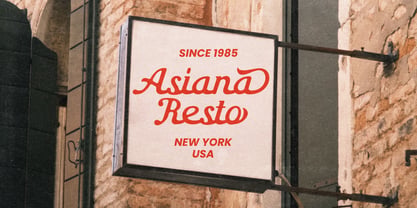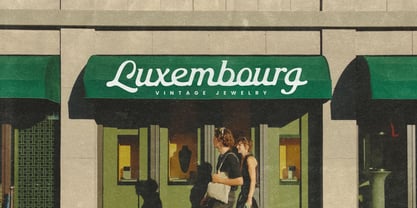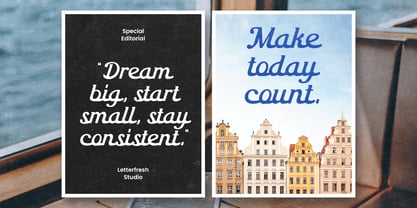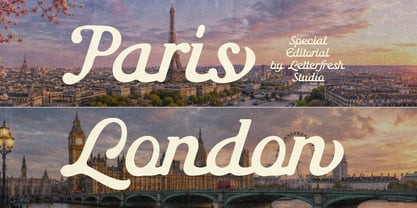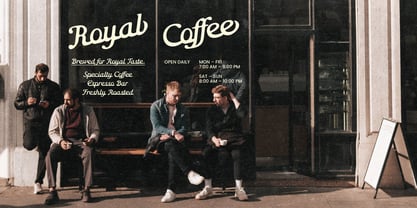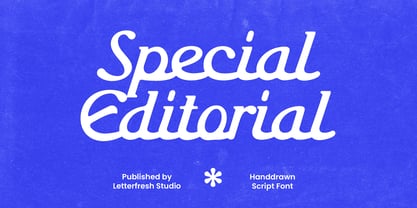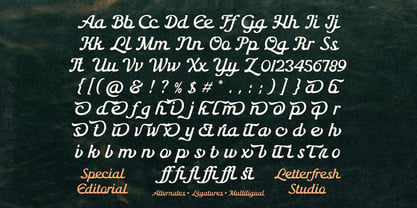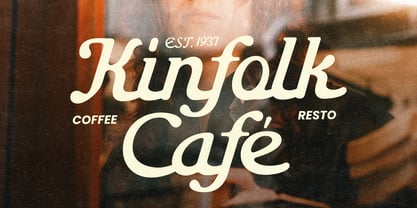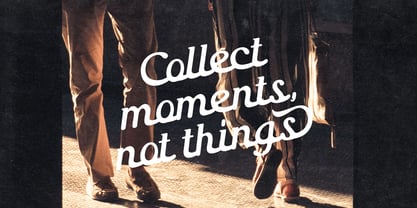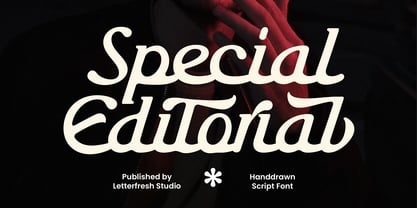
Special Editorial
The Special Editorial Font Family was designed by Rizki Andika and published by Letterfreshstudio. Special Editorial contains 1 styles. More about this family
Special Editorial is a hand-drawn script font that blends classic elegance with an artistic touch. Featuring smooth flowing letterforms, subtle thick-and-thin stroke contrast, and graceful decorative curves, this typeface delivers a refined, premium, and sophisticated appearance. Inspired by modern calligraphy with an editorial aesthetic, it is perfect for designs that aim to feel luxurious while maintaining a warm and personal character.
This font is ideal for a wide range of creative projects, including:
• Luxury logos and branding
• Magazine and editorial headlines
• Product packaging
• Wedding invitations
• Posters and promotional materials
• Social media content
• Inspirational quotes and other creative designs
With its elegant and eye-catching style, Special Editorial adds a professional, timeless, and visually appealing touch to any design. It works best as a display typeface for headlines, titles, and other large-format text, where its distinctive curves and handcrafted details can truly shine.